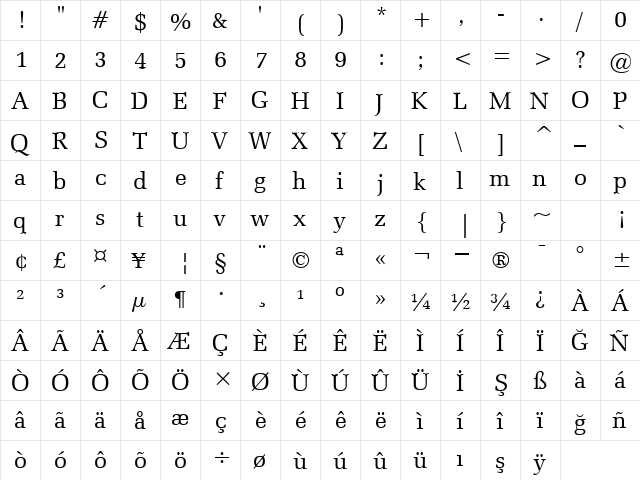
00715 Regular
Design Context for 00715 Typeface
00715 offers clean, dependable letterforms without strong stylistic allegiance, making it a practical choice for designers who need flexibility.